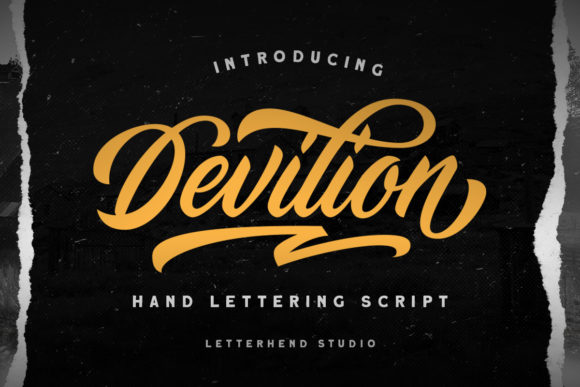
Feast your eyes on Devilion Script, a font family that dances across the digital canvas with grace and boldness. This curated collection of elegant and dynamic typefaces is a testament to the artistry of letterhend, the creative genius behind this font masterpiece.
Devilion Script is not just a collection of letters; it's an invitation to embark on a journey of visual storytelling. Each stroke, each curve, each meticulously crafted detail is a testament to the passion and dedication that went into its creation.
With Devilion Script, you're not just downloading a font; you're acquiring a versatile tool that will elevate your designs to new heights. Whether you're a seasoned graphic artist or just starting, Devilion Script will ignite your creativity and empower you to leave an enduring mark on the world of design.
So, dive into the world of Devilion Script and let your imagination run wild. Create stunning logos that capture attention, design eye-catching social media posts that demand engagement, or craft heartfelt invitations that leave a lasting impression. The possibilities are endless.
Don't settle for ordinary fonts that blend into the background. Embrace the Devilion Script family and unleash your creativity like never before. Let your designs speak volumes, captivating your audience with every word, every letter, every stroke.